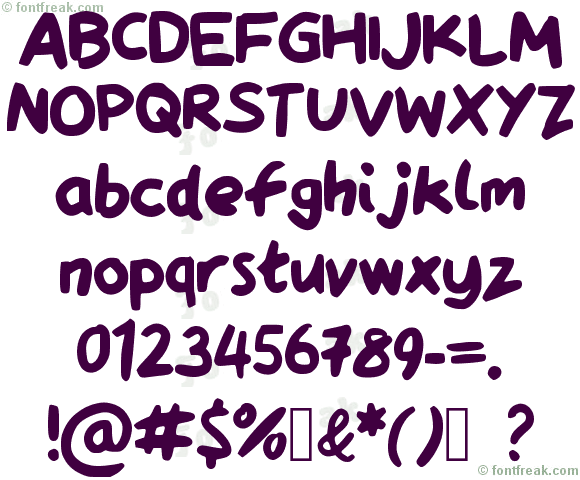
QAReports
About QAReports
The QAReports font, created by Andrew McCluskey and available for free download, offers a unique blend of modern style and versatility. This display typeface is characterized by its bold, rounded forms and playful appearance, making it an engaging choice for various design projects. The stroke weight is consistent, providing a sense of balance, while the generous spacing enhances legibility, even at smaller sizes. The absence of sharp edges gives the font a friendly and approachable feel, perfect for projects that require a touch of warmth.
Due to its distinctive visual characteristics, QAReports is an excellent choice for a range of applications. It shines in creative contexts such as children’s book covers, where its playful nature can captivate young readers. Additionally, it works well for branding projects, offering a memorable identity for small businesses aiming to convey a fun and relaxed vibe. The font is also suitable for social media graphics, where eye-catching typography can help engage audiences. For event flyers, the boldness of QAReports ensures that important information stands out, making it ideal for casual gatherings and community events.
The target audience for QAReports includes graphic designers, small business owners, and content creators who seek to add a bit of flair to their work. Its versatility and modern aesthetic make it appealing to those looking to create eye-catching designs without sacrificing readability.
What sets the QAReports font apart is its ability to blend playfulness with professionalism, making it a unique asset in any designer's toolkit. Whether you're crafting a whimsical poster or a branding campaign, the QAReports font free download provides an accessible option that delivers both style and substance.